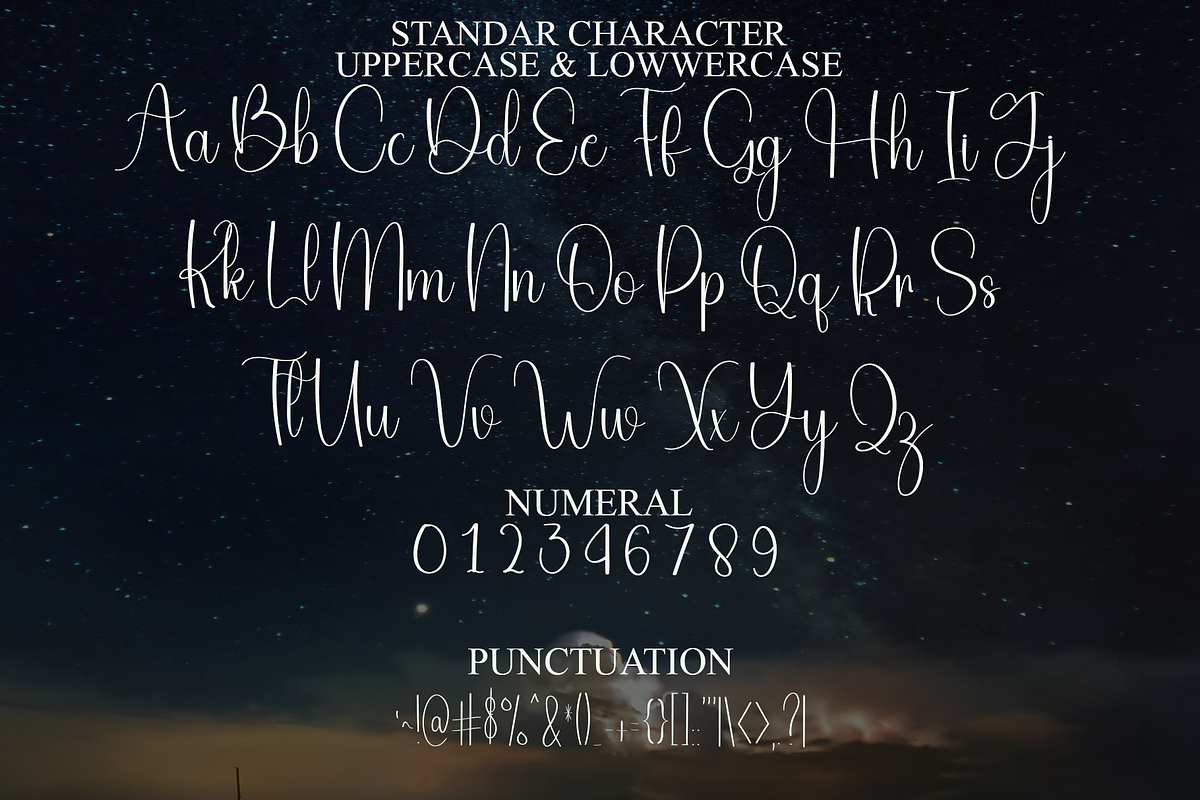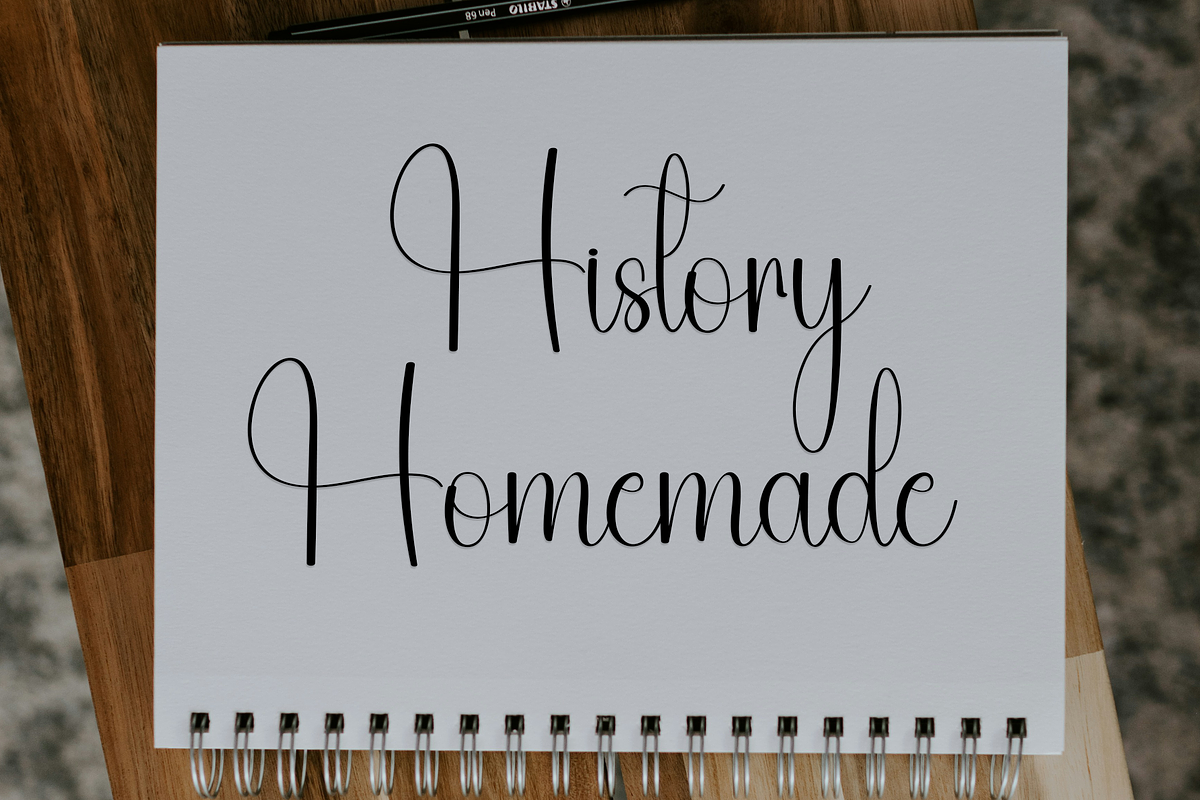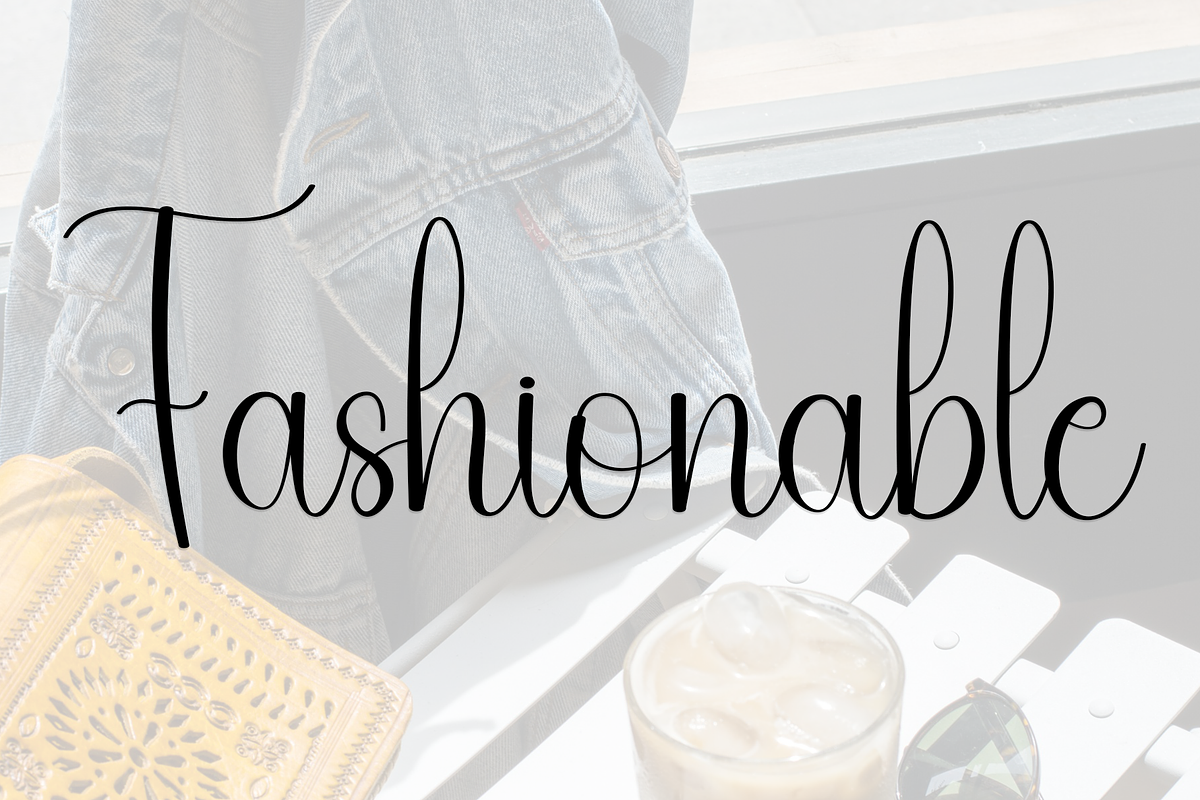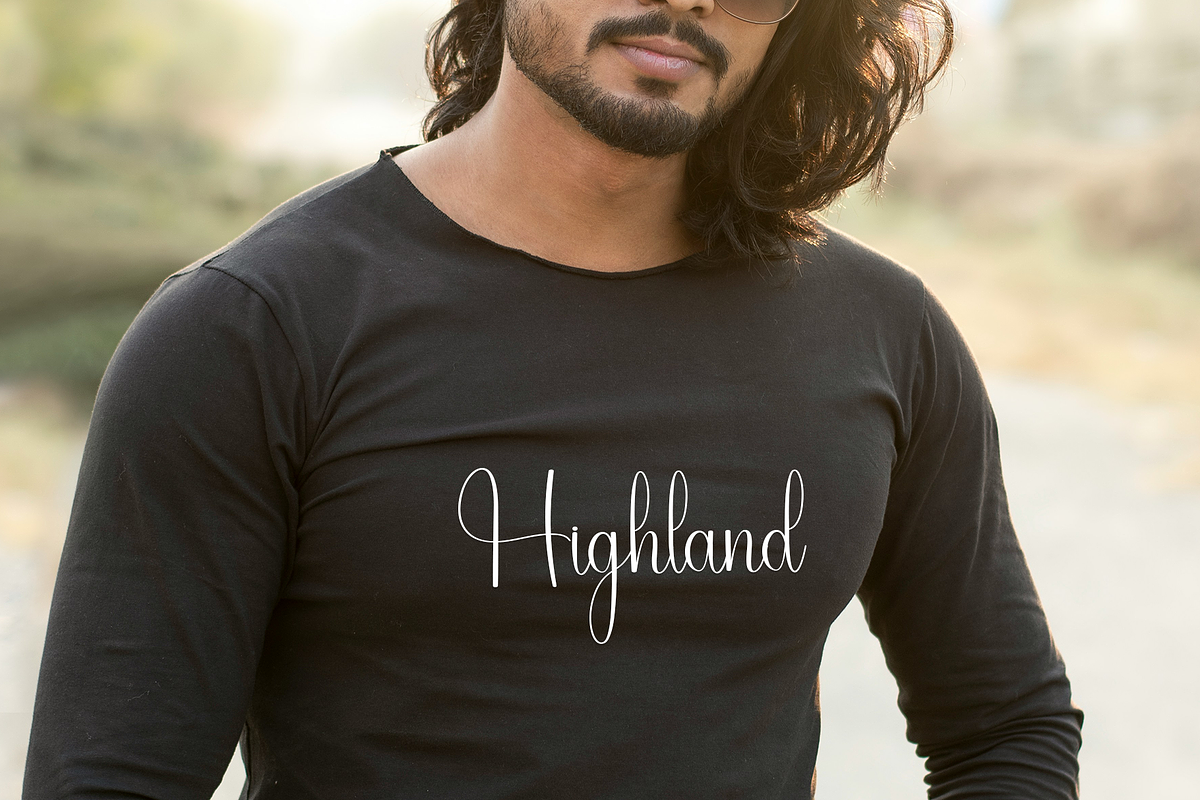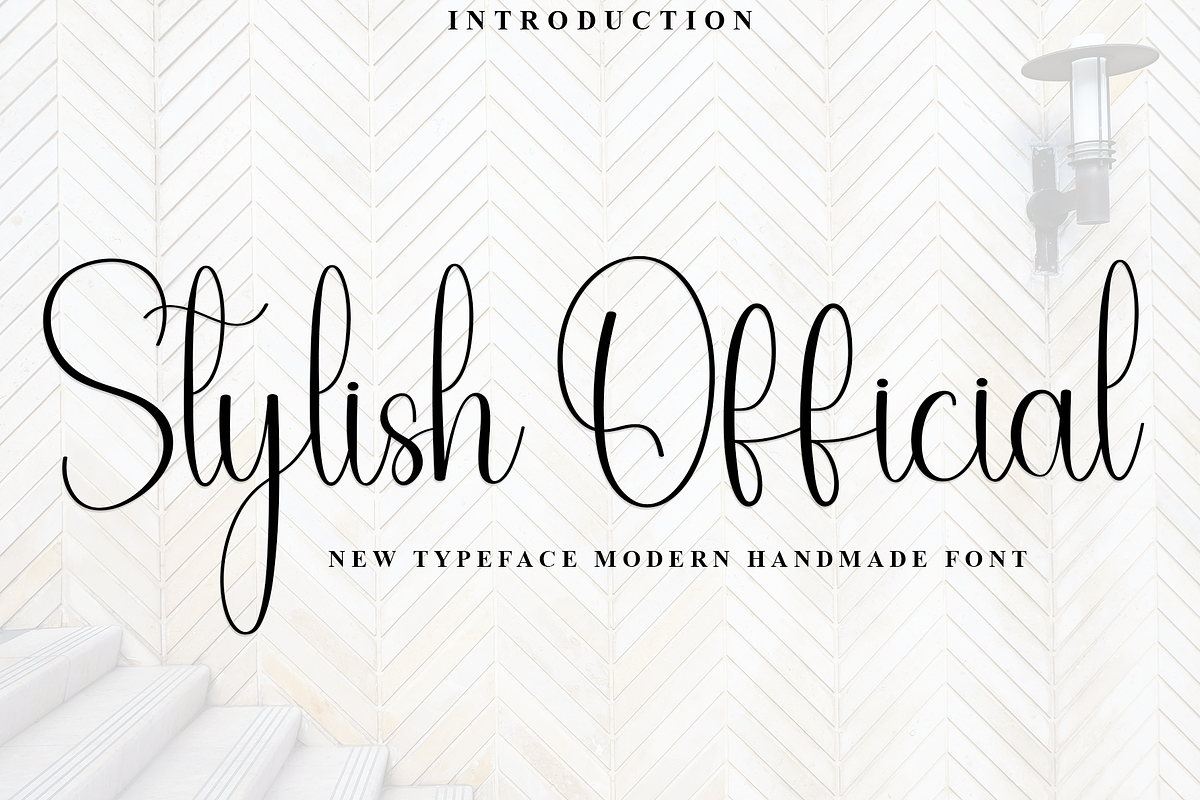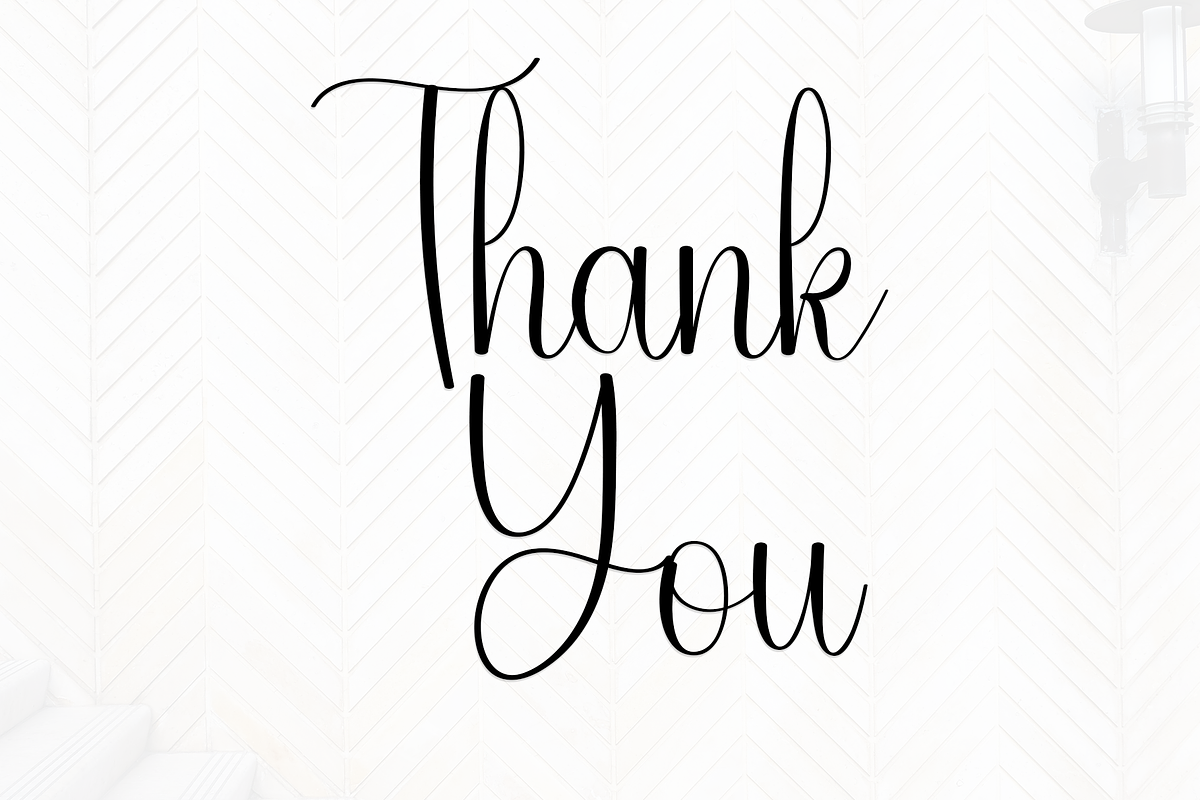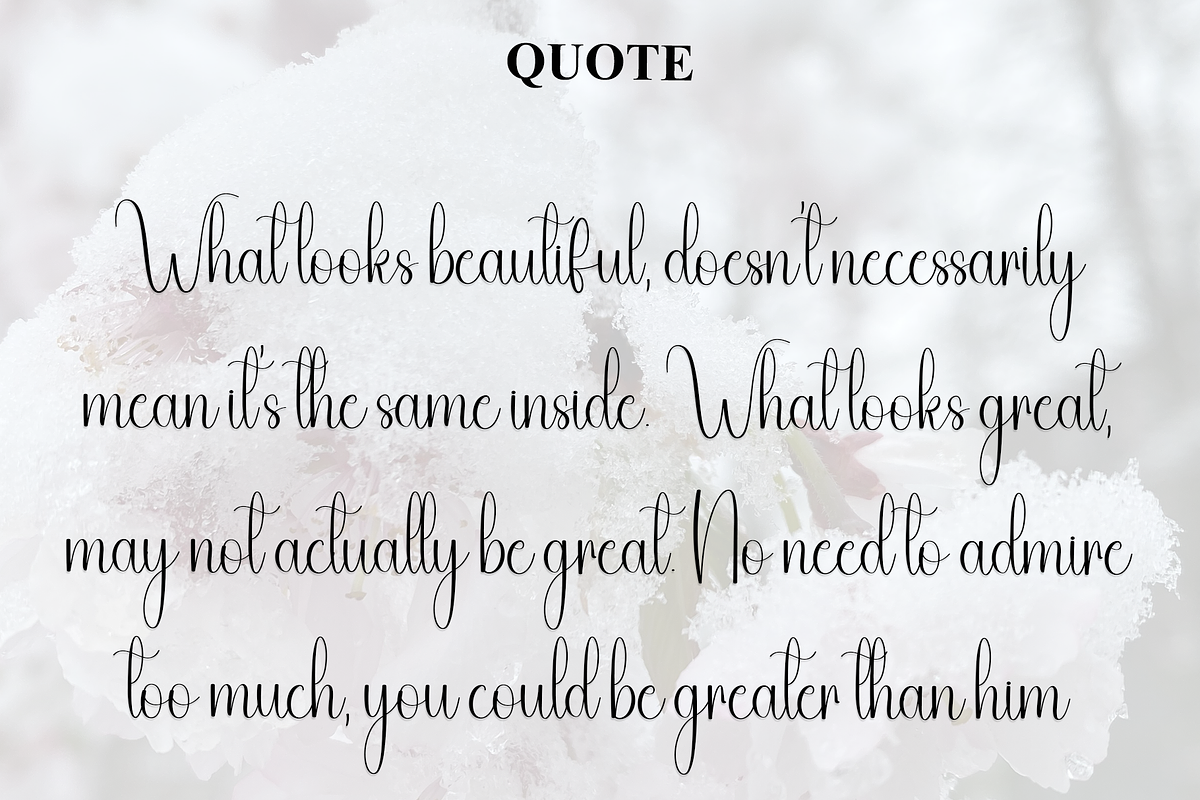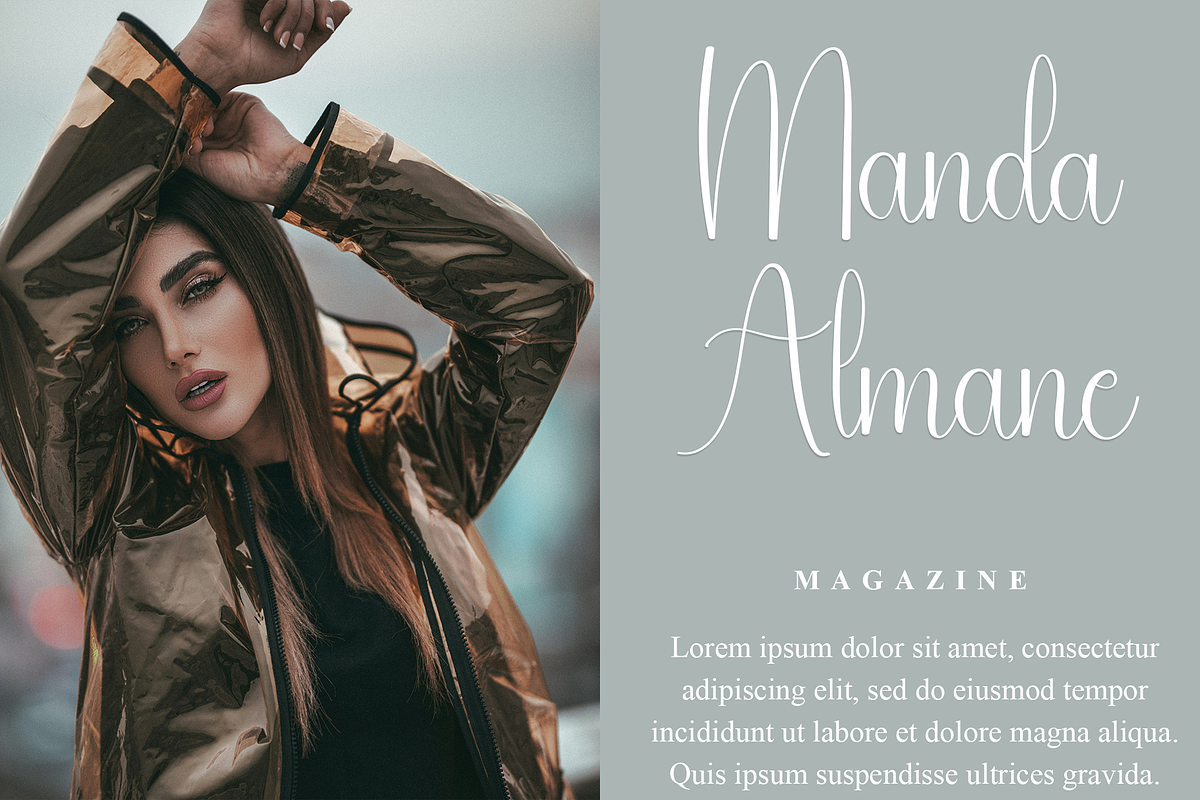
Stylish Official
Stylish Official is a beautiful and eye-catching font designed with a soft, unique touch. Its distinctive strokes give it a special character, making it meaningful and versatile for future use. With various characters, it’s perfect for design projects, crafts, and other creative works.